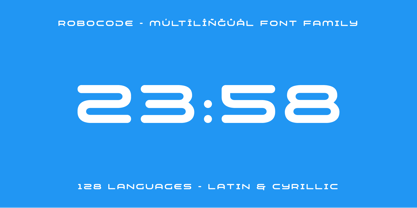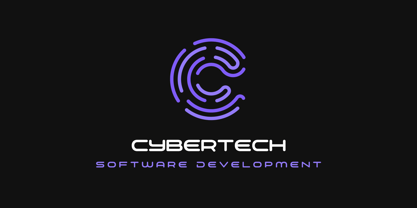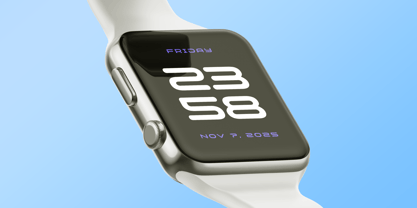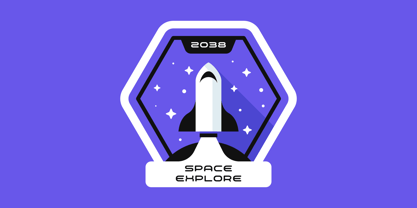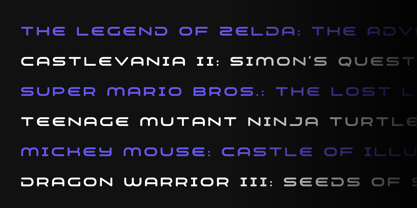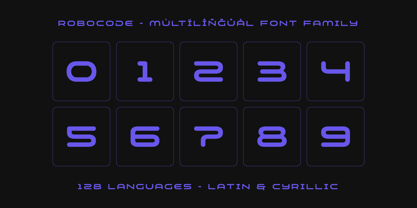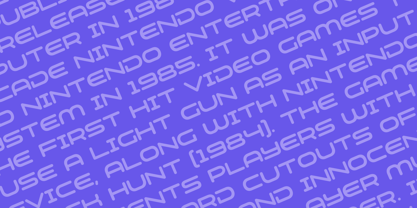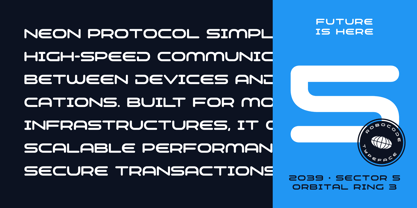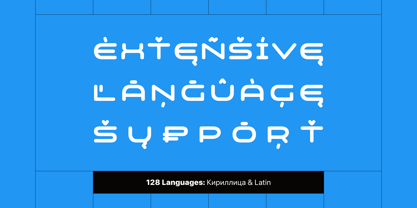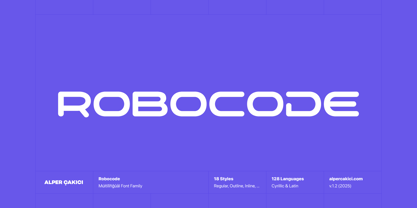
Robocode
von AlperCakici
Die Schriftfamilie Robocode wurde von Alper Çakıcı entworfen und von AlperCakici veröffentlicht. Robocode enthält 18 Stile und Familienpaketoptionen. Mehr über diese Familie
🚀 Robocode – The Futuristic Rounded Typeface System Meet Robocode, a modern display type family engineered for designers seeking impact, clarity, and creative flexibility. Blending soft rounded geometry with futuristic and stencil-inspired construction, Robocode provides a dynamic set of 18 handcrafted styles ranging from clean and technical to textured, eroded, inline, and rough variations. Whether you're designing cinematic sci-fi titles, immersive UI, tech branding, gaming visuals, or experimental poster layouts, Robocode gives you a cohesive, versatile system for bold and modern expression. ✨ Why Choose Robocode? 18 Styles: Angular, Brush, Eroded, Inline, Outline, Pencil, Rimmed, Rough + matching italics. Rounded Futuristic DNA: Smooth geometry paired with sharp modular cuts for a modern high-tech voice. Flexible & Impactful: Perfect for tech branding, gaming, posters, apps, motion graphics, packaging, and UI/UX. Optimized for Performance: Crisp results across digital interfaces, print design, and large-scale display. 128 Languages Supported: Extensive Latin + Cyrillic coverage ensures global communication. 🛠 Included Styles (18 Total) Robocode Angular • Angular Italic • Brush • Brush Italic • Eroded • Eroded Italic • Inline • Inline Italic • Outline • Outline Italic • Pencil • Pencil Italic • Regular • Rimmed • Rimmed Italic • Rough • Rough Italic 🌍 Multilingual Support – 128 Languages Includes full Latin + Cyrillic support for wide global compatibility.
Designer: Alper Çakıcı
Foundry: AlperCakici